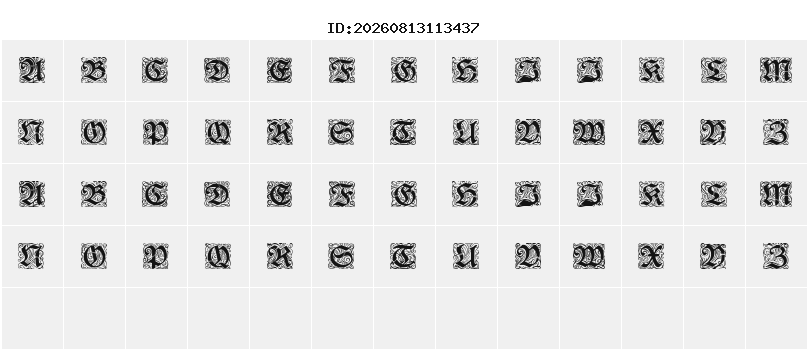
• Font Name: Rediviva Zierbuchstaben
• Designer: Dieter Steffmann
• Description: Rediviva Zierbuchstaben. Hausschnitt von Benjamin Krebs Nachf., 1905